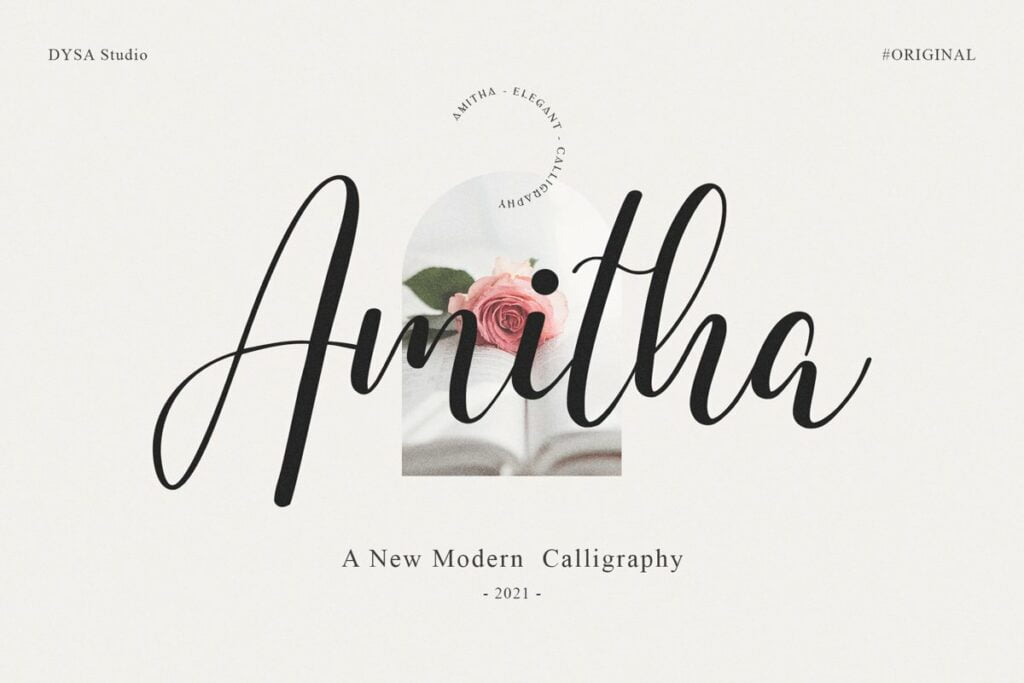
Amitha Font
Introducing the Amitha Calligraphy Font is a new modern calligraphy script typeface. This another collection of script is perfect for your branding project, excellent for your business. Amitha have a smooth edges, so this font gives an authentic handcrafted feel style.
Amitha Font is perfect choice for people looking for clean, modern, minimalist, elegant, beauty design styles. Suitable for almost any graphic designs such as logo, branding materials, business cards, gift cards, t-shirt, cover, thumbnail, print, poster, photography, quotes etc.
Amitha Calligraphy Script Font